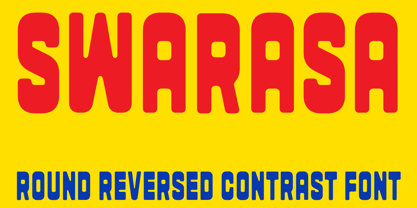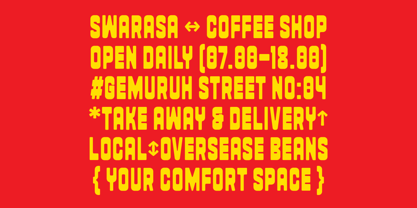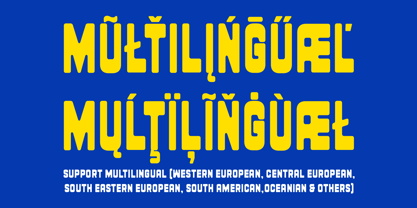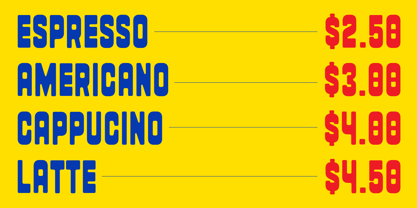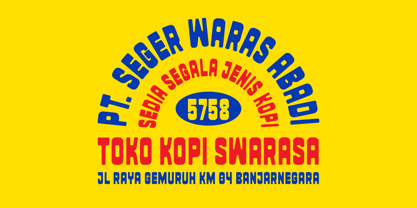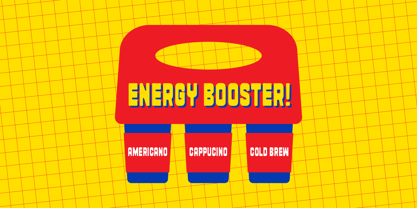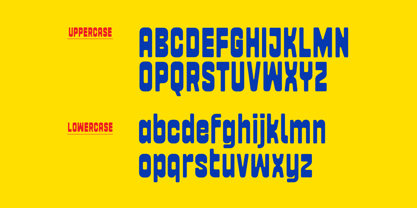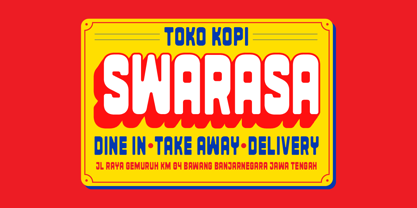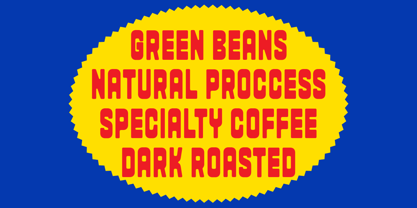
Swarasa
by Griyotype
The Swarasa Font Family was designed by Aprian Sembada and published by Griyotype. Swarasa contains 1 styles. More about this family
Swarasa is a distinctive display typeface that showcases a round reversed contrast style, radiating a bold, playful, and charismatic essence. Its unique inverted contrast, paired with chunky rounded shapes, creates a delightful fusion of retro aesthetics and modern quirkiness, ensuring high readability while making a striking impression. This typeface is ideal for a wide range of applications, including: - Posters and flyers that embrace retro or pop-art themes - Food and beverage branding, especially for coffee packaging, organic products, or artisan labels - Album covers, zines, and bold editorial designs - Merchandise, apparel, stickers, and signage. With its strong personality and versatile appearance, Swarasa is designed to infuse a fresh and distinctive flair into your design projects, making it an excellent choice for creative endeavors that aim to stand out.
Designers: Aprian Sembada
Foundry: Griyotype